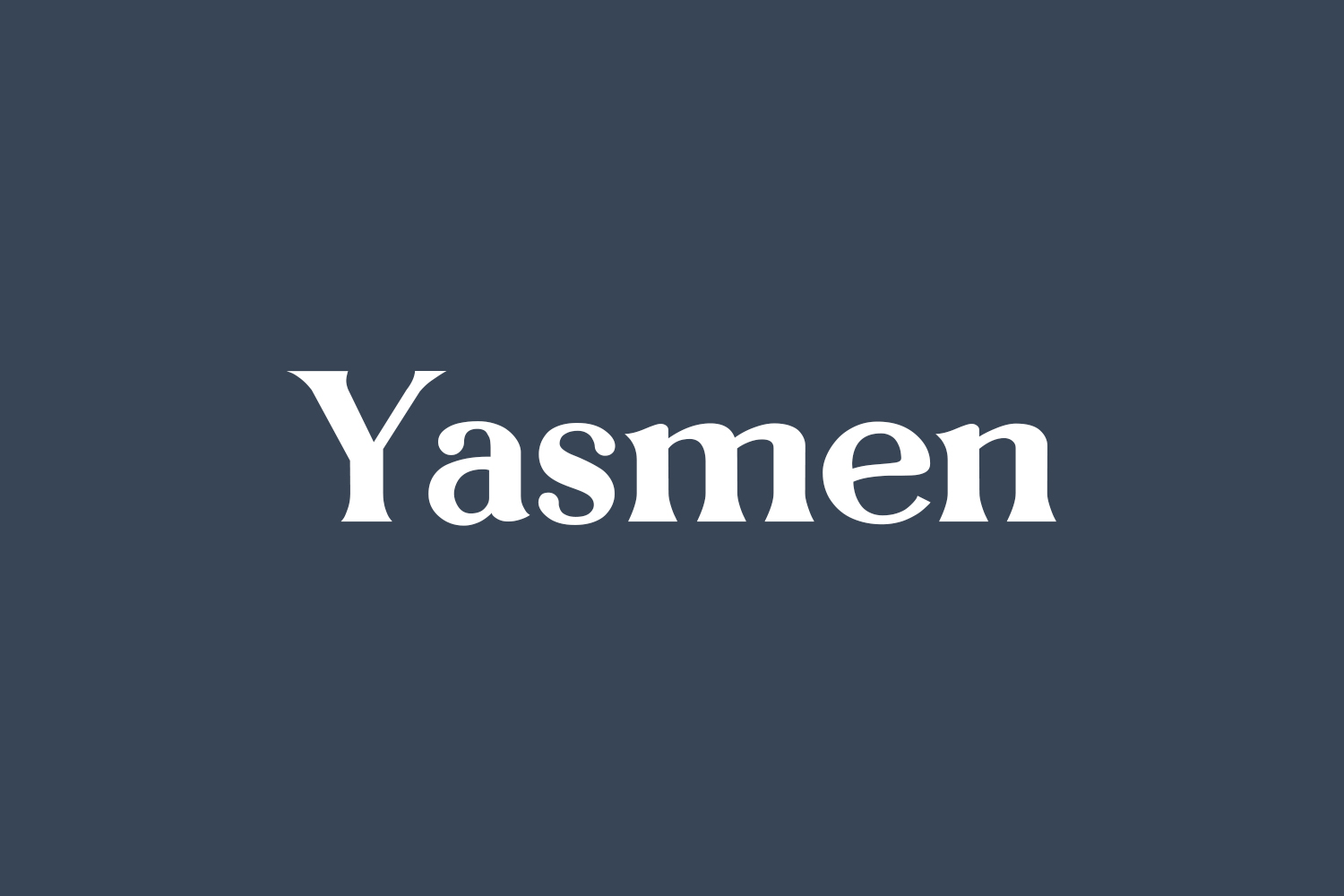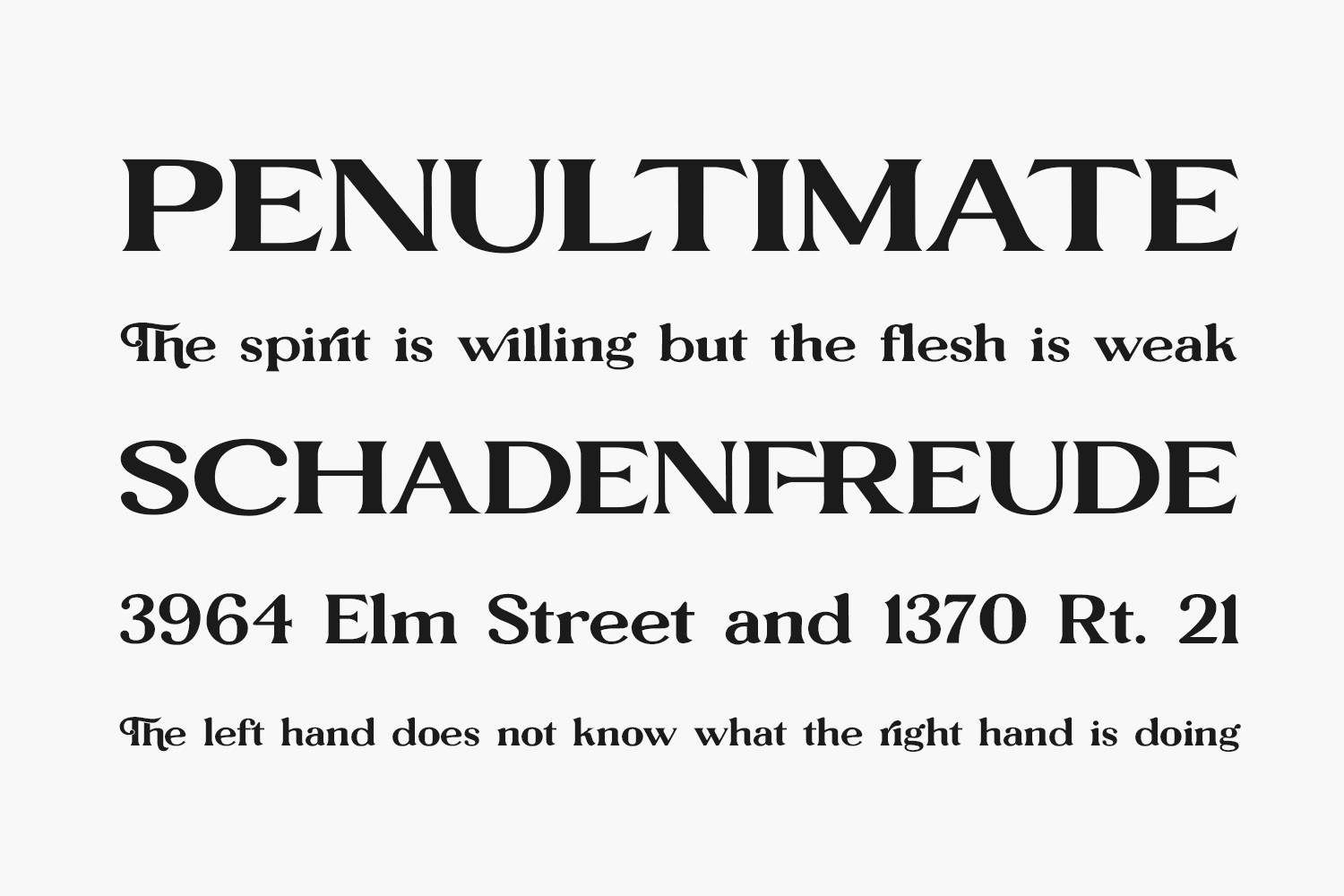
Experience the charm of Yasmen Free Font, a delightful serif font that combines a stunning aesthetic with effortless readability. Elevate your creative design experience with the Yasmen Font, bringing a fresh sensation to your projects. Ideal for display titles, advertising, social media, branding, logotypes, packaging, titles, editorial work, and modern designs, Yasmen adds a touch of elegance to your typography endeavors. Yasmen Free Font was designed by Font Kingdom and is free for personal use only. Please purchase the full version for commercial use.
Designed by Font Kingdom